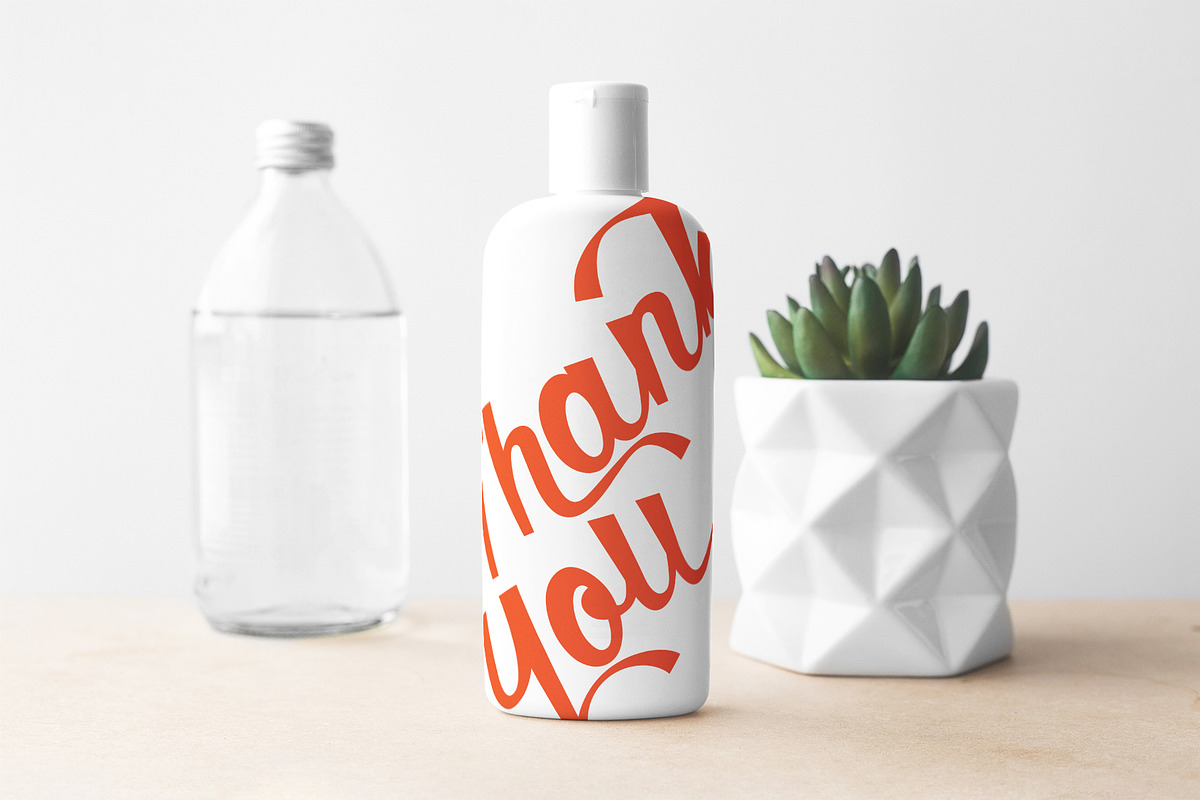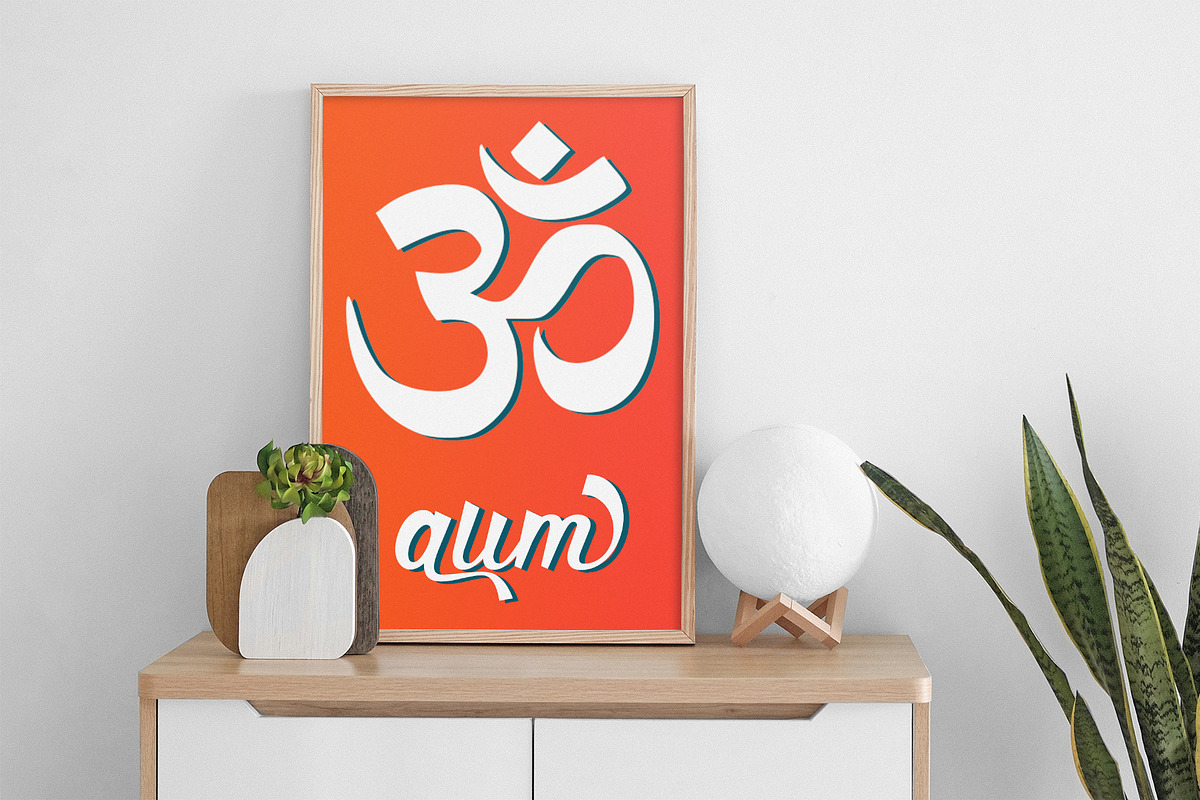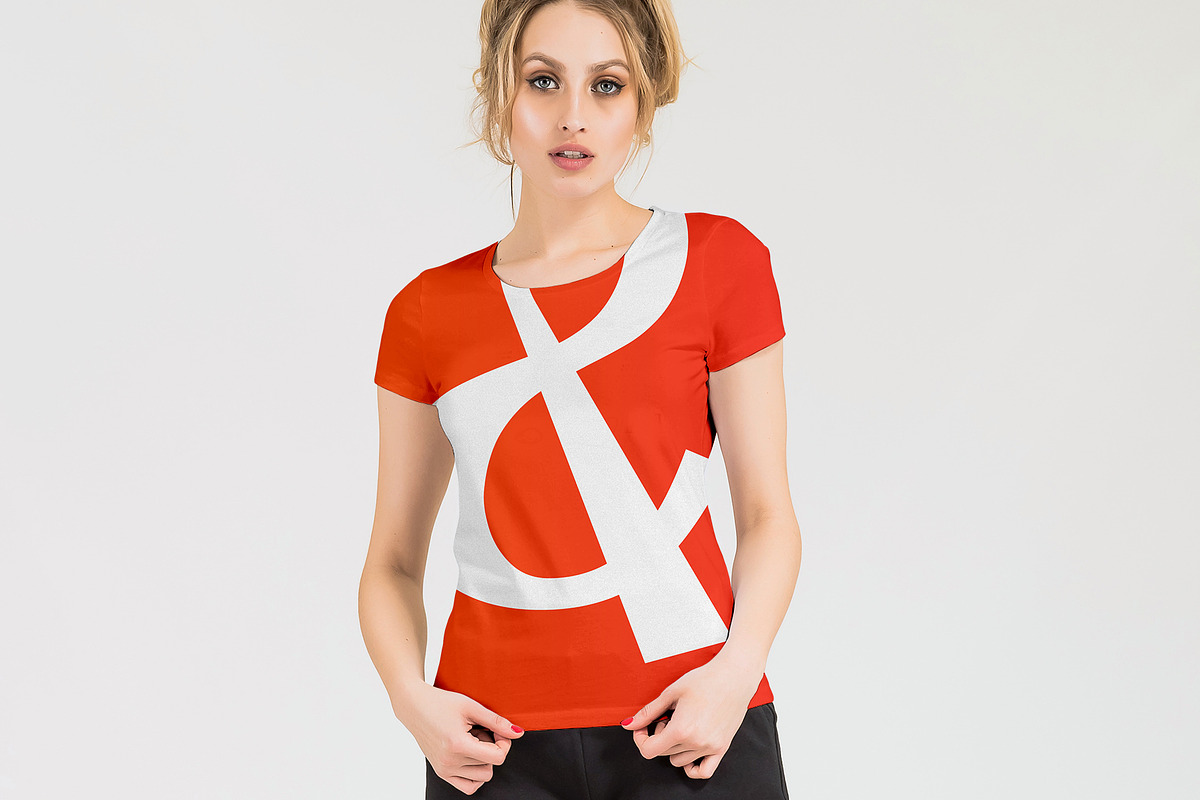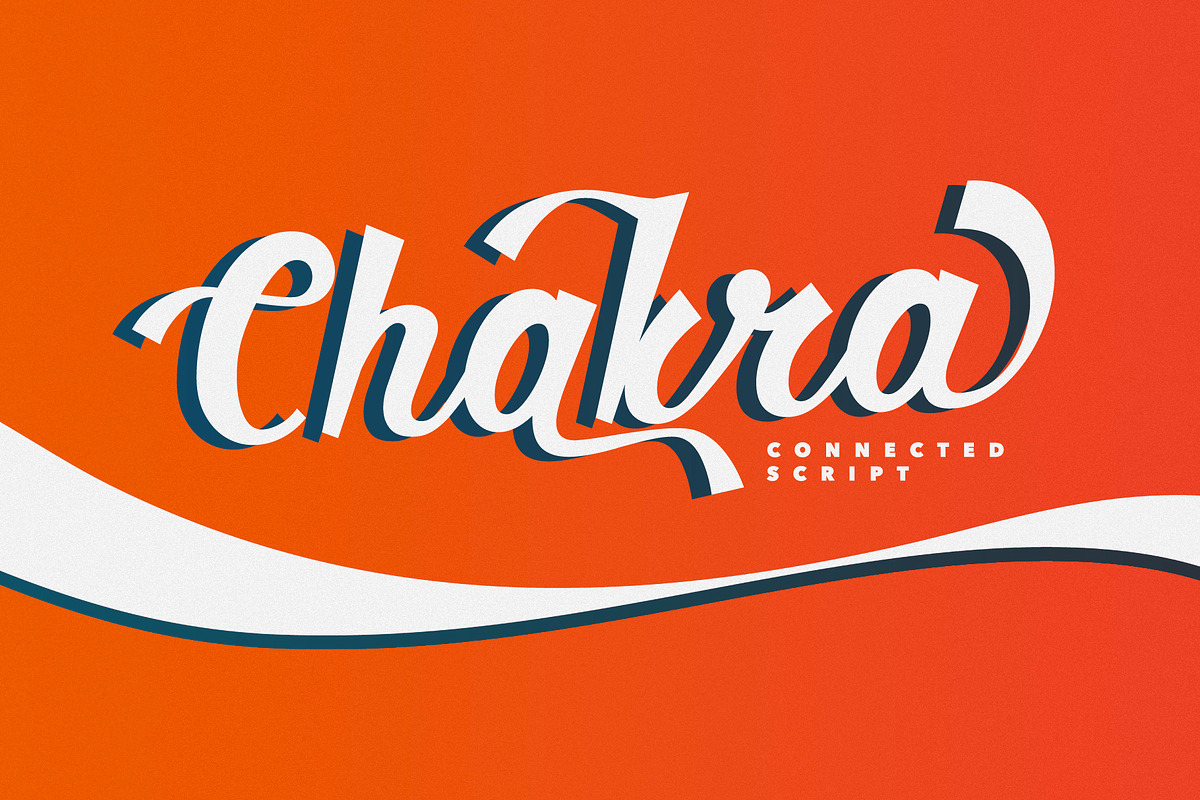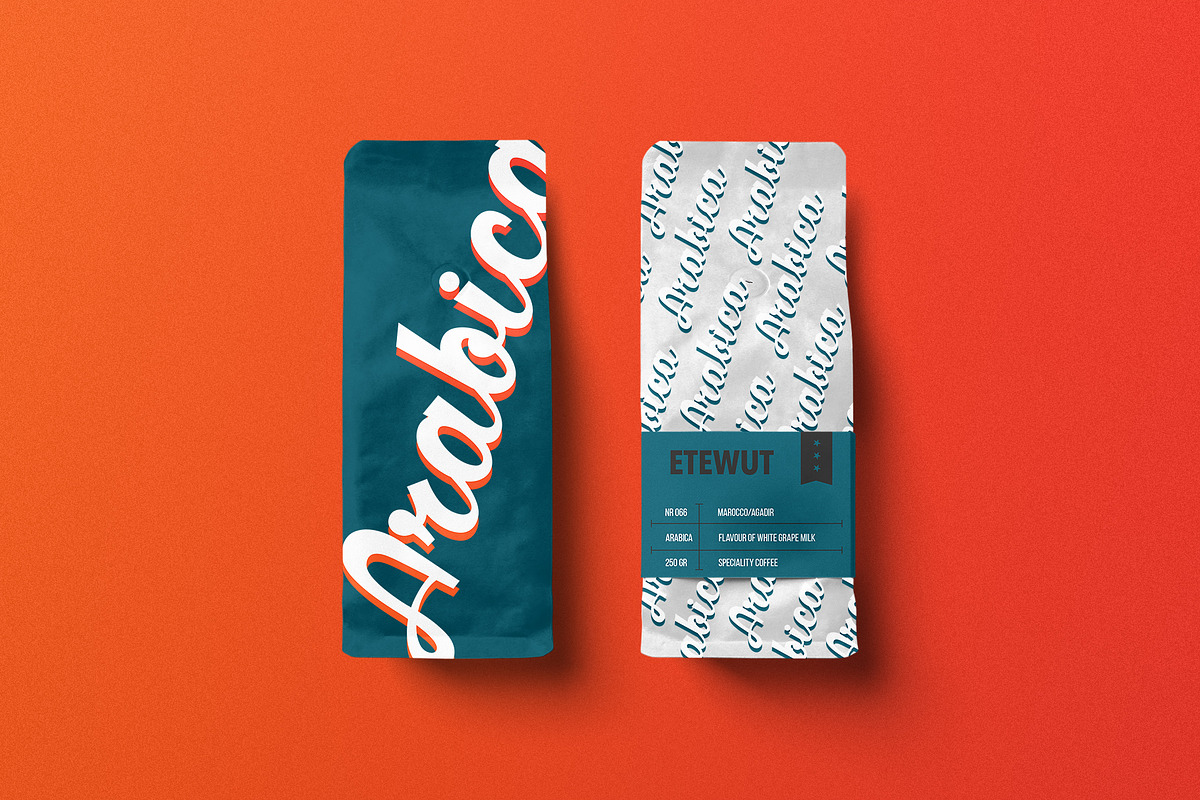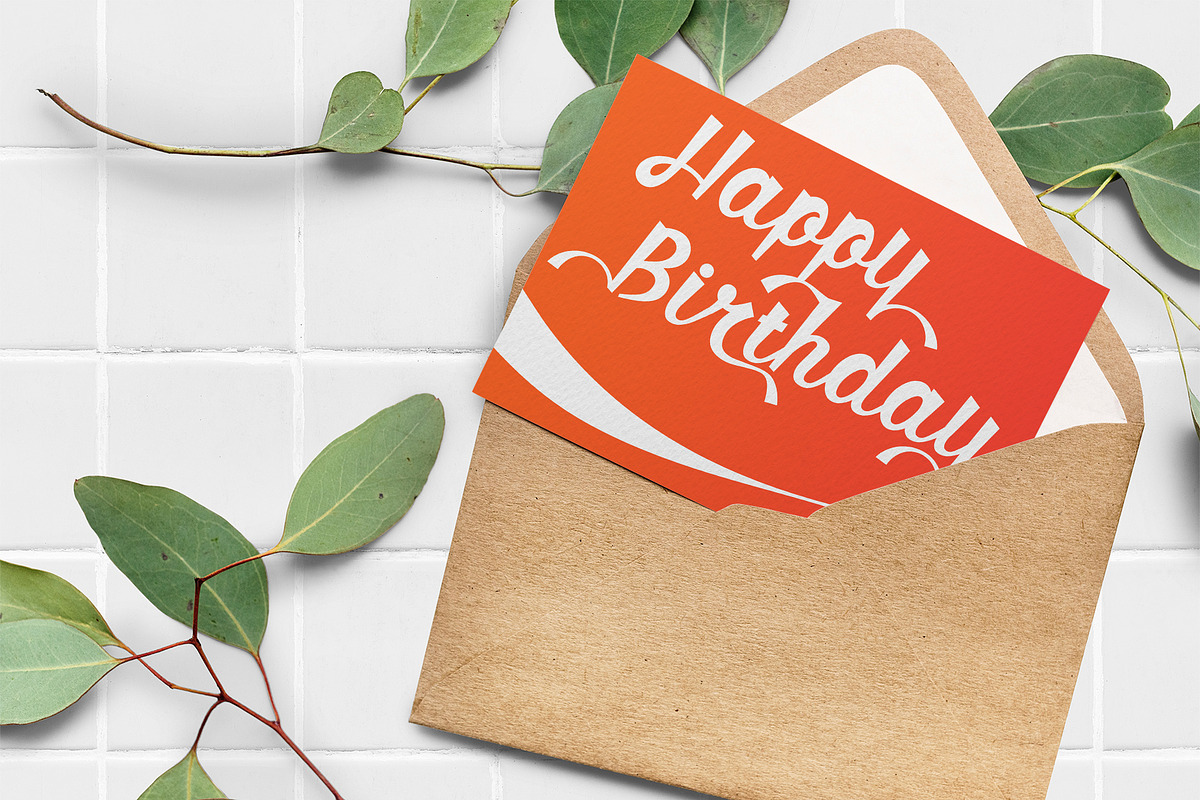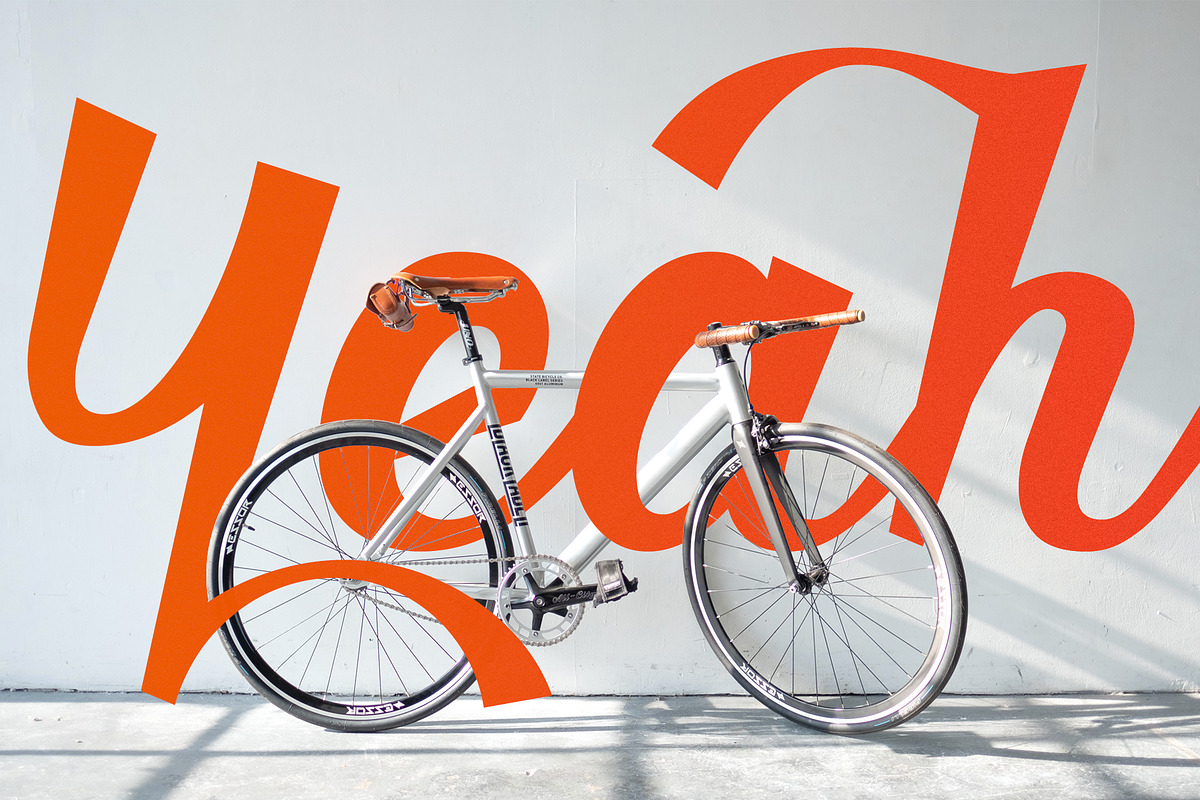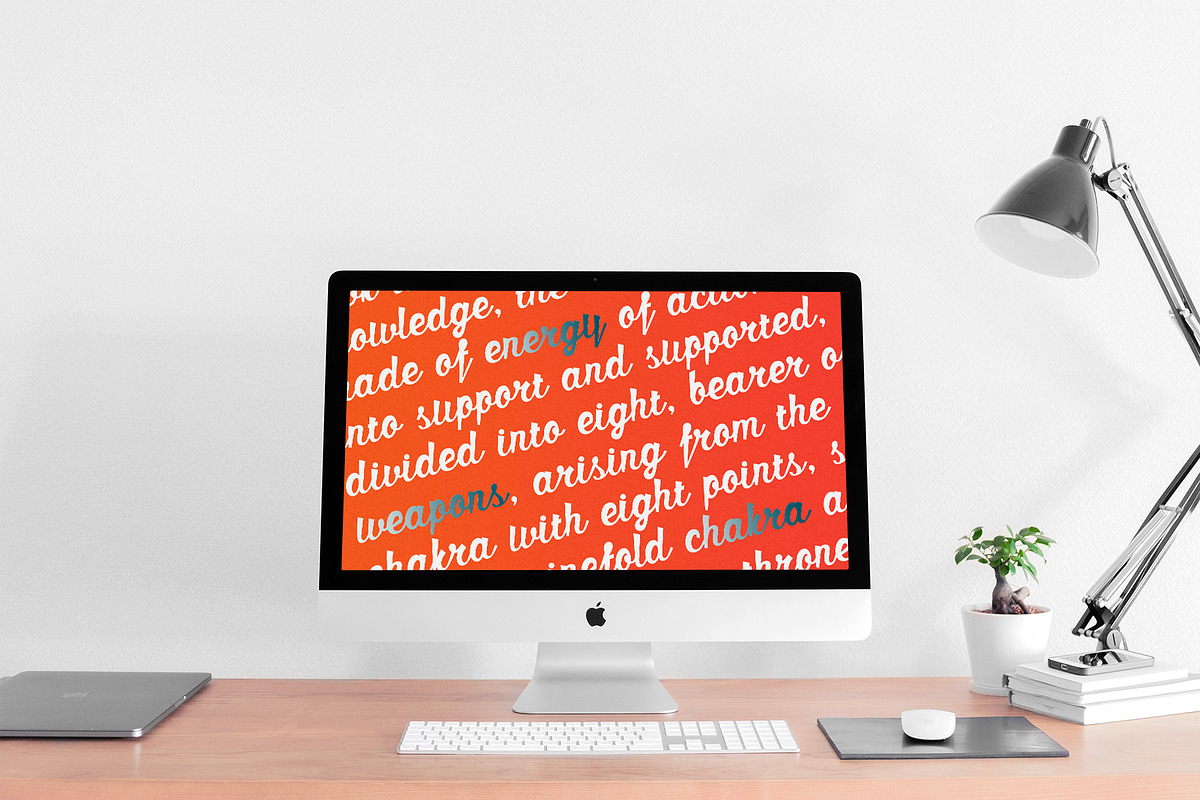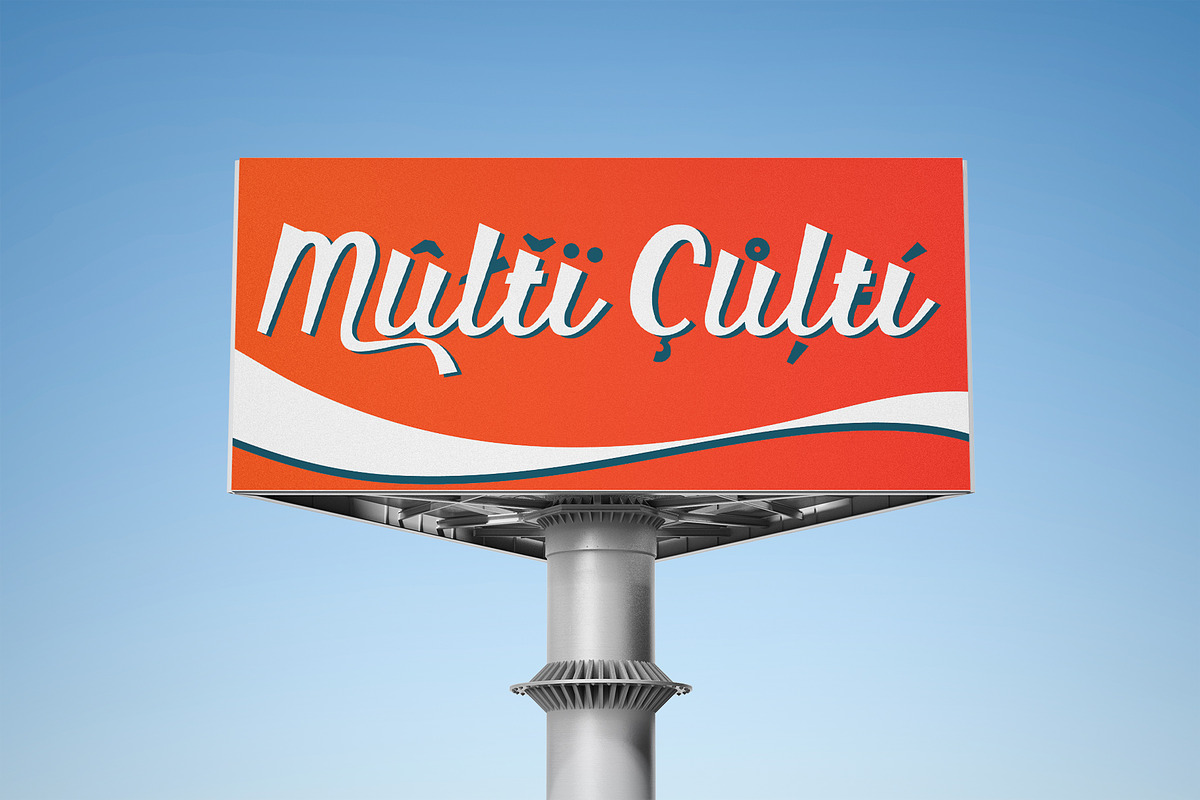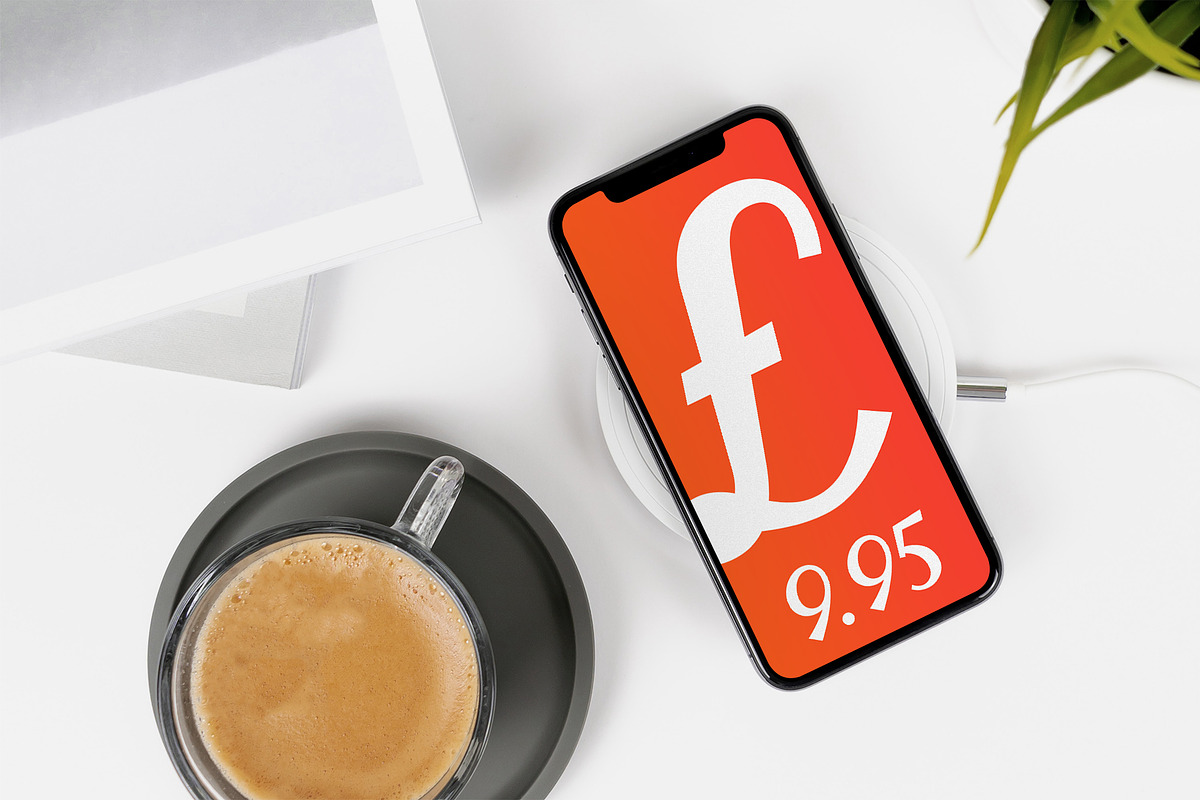
• Chakra is connected script. Very good font. Selected calligraphy.
• Chakra family includes 7 fonts. All different, but all good.
• Chakra may become very popular. With your help only. Support matters.
• Chakra touches your soul with nice swashes. To make you happy.
• Chakra knows where pop culture leads. You will as well.
• Chakra is here to shine. You are here to take it. And enjoy.